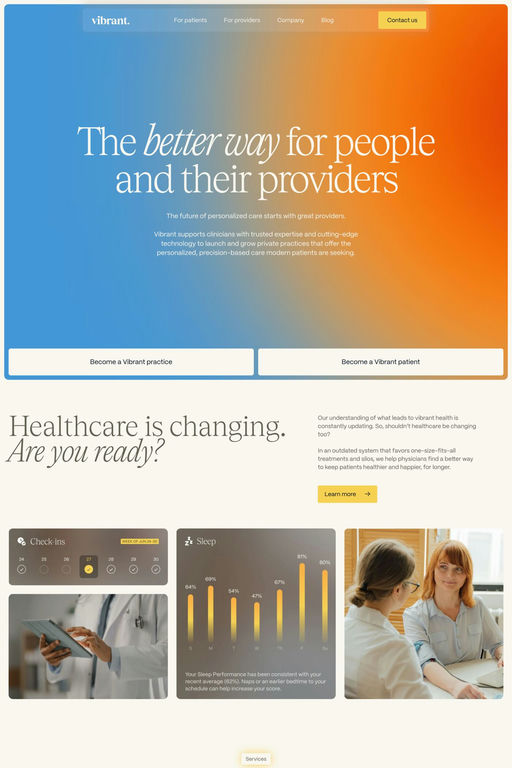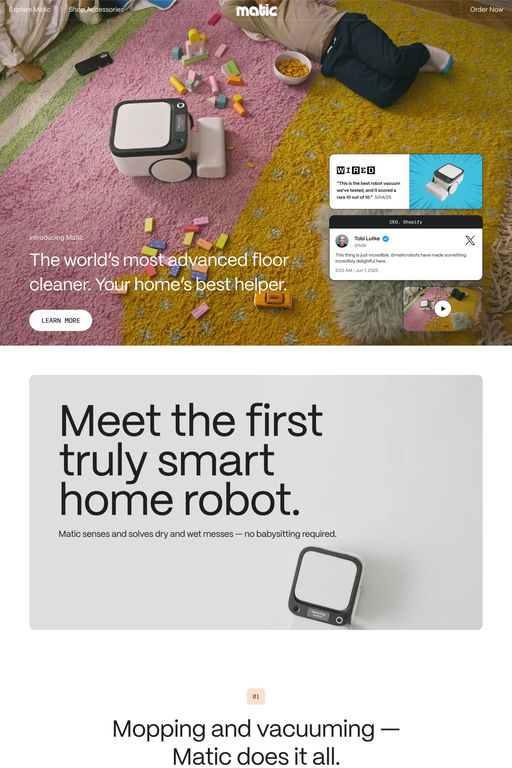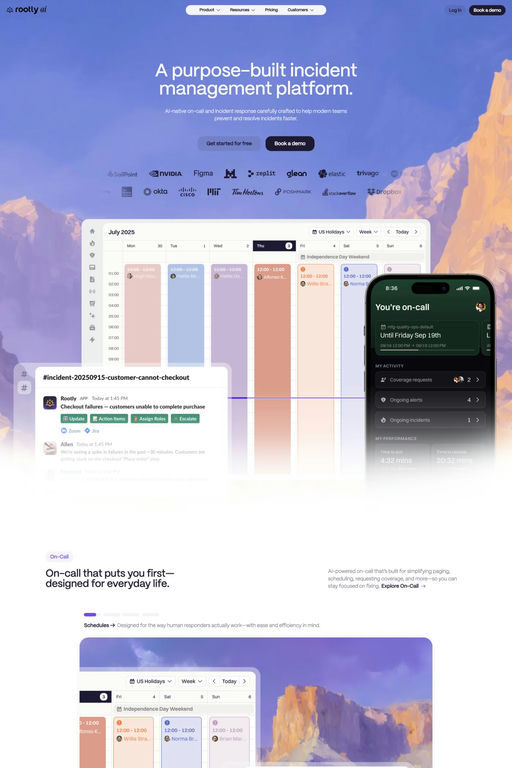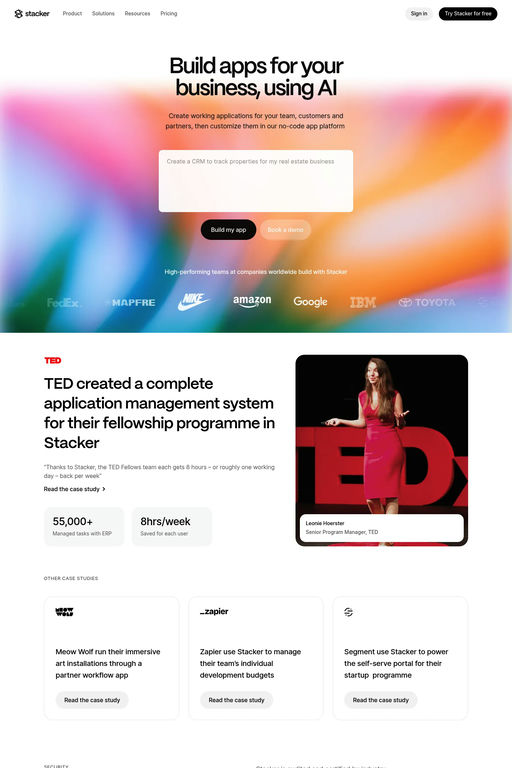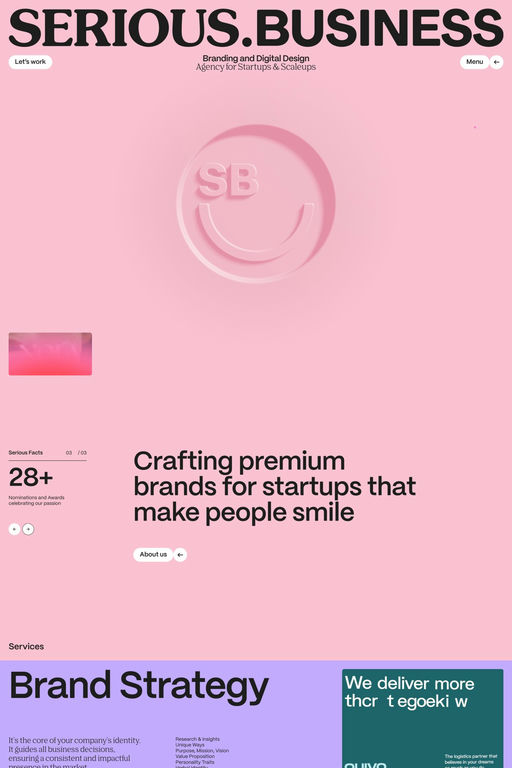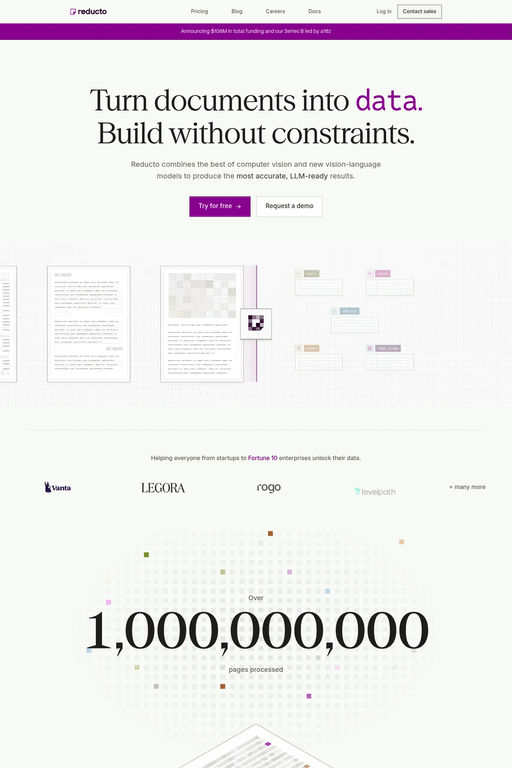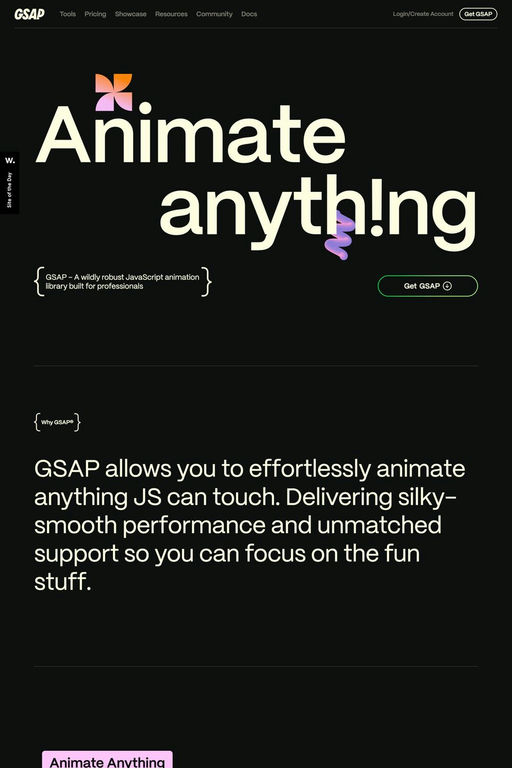
Mori is a sans-serif typeface from Pangram.
Mori is a versatile and sophisticated gothic sans serif inspired by contemporary Japanese design, best suited for editorial, graphic design and branding.
A1 features 9 websites using Mori, including Andre Candido, SERIOUS.BUSINESS, and Reducto. They lean towards Gradients, Serif, and Techy design styles, and they’re most often built with Webflow, Next.js, and Wordpress.